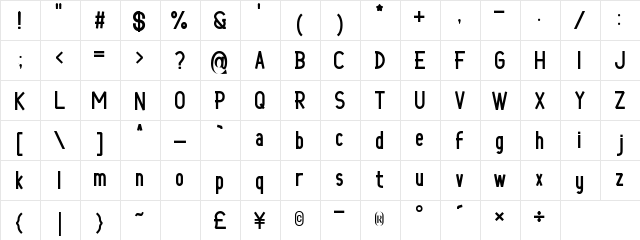
Boomerang Regular
| Designer | Wuttype |
Design Context for Boomerang Typeface
Boomerang offers clean, dependable letterforms without strong stylistic allegiance, making it a practical choice for designers who need flexibility.